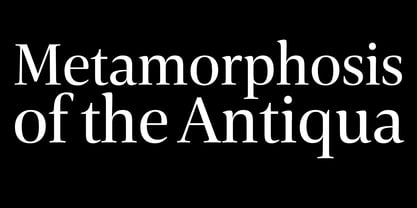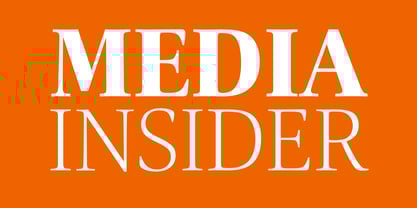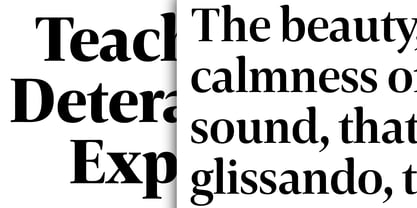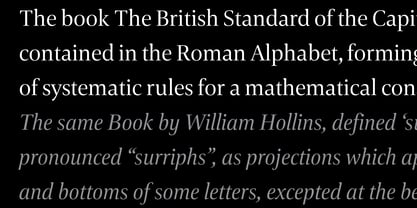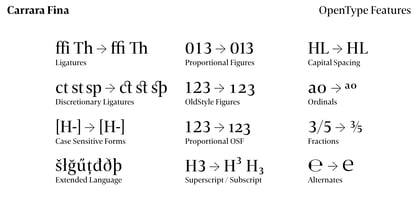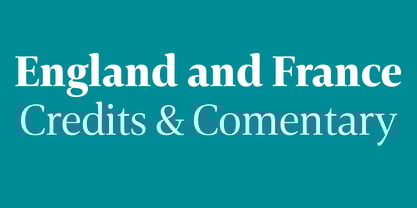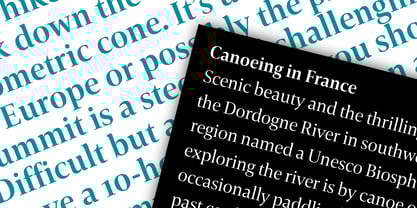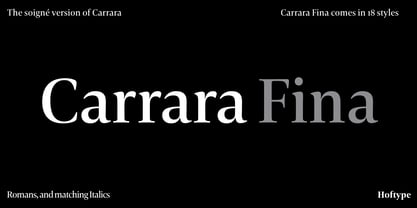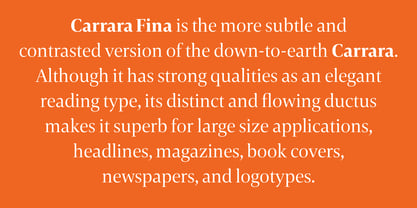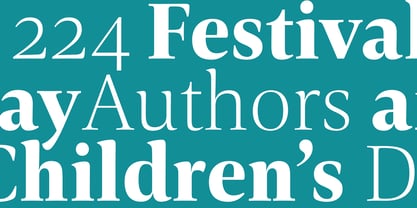
Carrara Fina
by Hoftype
The Carrara Fina Font Family was designed by Dieter Hofrichter and published by Hoftype. Carrara Fina contains 18 styles and family package options. More about this family
Carrara Fina is the more subtle and contrasted version of the down-to-earth Carrara. Although it has strong qualities as an elegant reading type, its distinct and flowing ductus makes it superb for large size applications, headlines, magazines, book covers, newspapers, and logotypes.
Designers: Dieter Hofrichter
Foundry: Hoftype